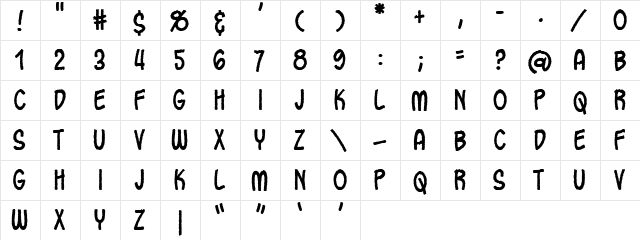
Oh Crap Regular Font Preview
Oh Crap Regular
Oh Crap Regular Font Details
Design Context for Oh Crap Typeface
Oh Crap is a composed and adaptable typeface that performs quietly and consistently across a wide range of design contexts.